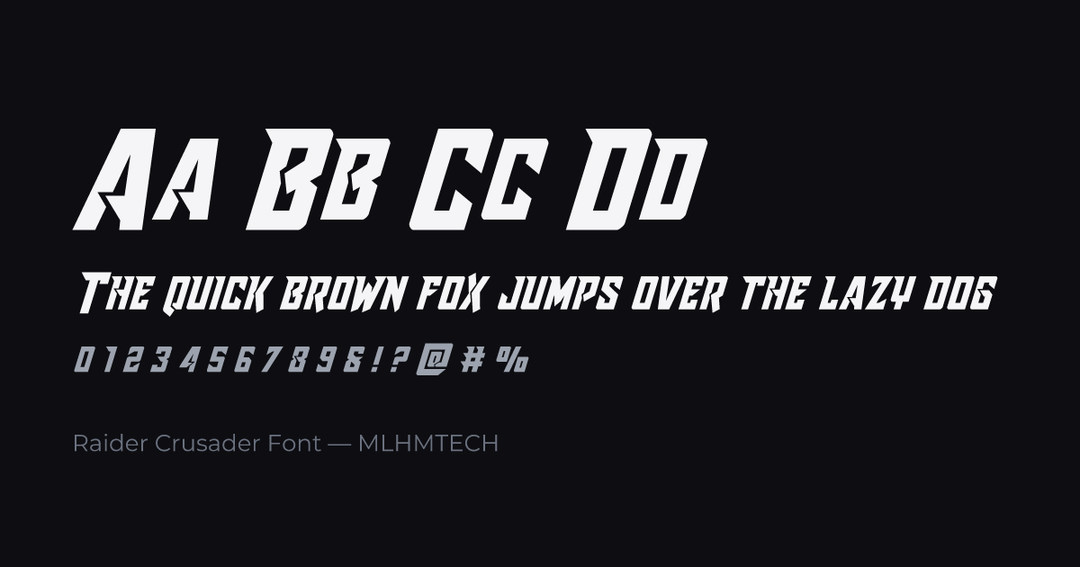
Raider Crusader Font
Raider Crusader is a bold, condensed sans-serif font that commands attention. Ideal for sports graphics, movie titles, and branding.
Raider Crusader is a high-impact display font with a strong, condensed silhouette. Its sturdy letterforms and sharp angles evoke a sense of power and determination, making it perfect for sports-related designs, action movie posters, and bold branding projects.
This font includes uppercase and lowercase letters, numerals, and basic punctuation. It performs exceptionally well at large sizes, such as headlines and titles, but remains legible in smaller contexts like badges or labels. The clean lines and modern aesthetic ensure versatility across various media.